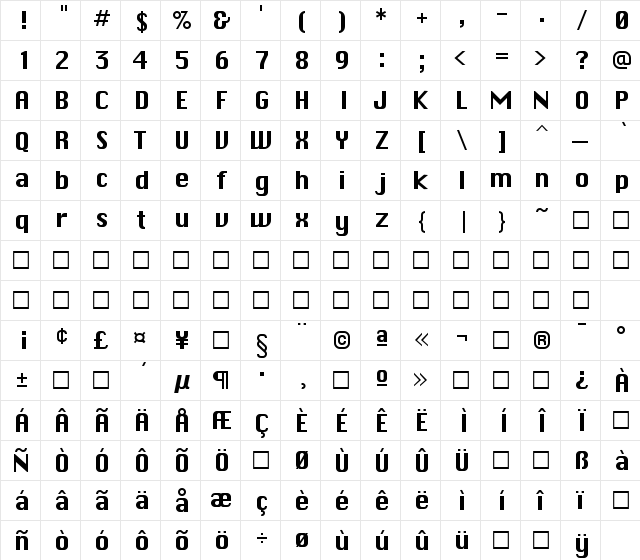
Clapton Regular
Design Context for Clapton Typeface
Clapton offers clean, dependable letterforms without strong stylistic allegiance, making it a practical choice for designers who need flexibility.